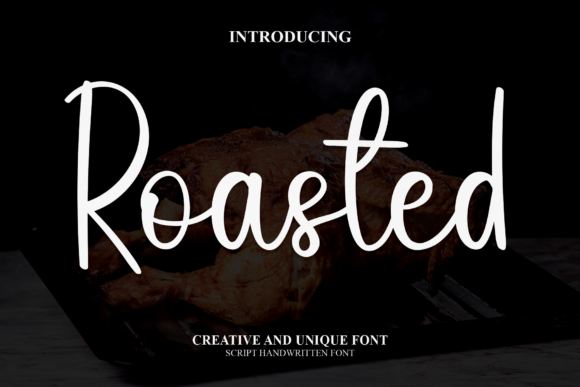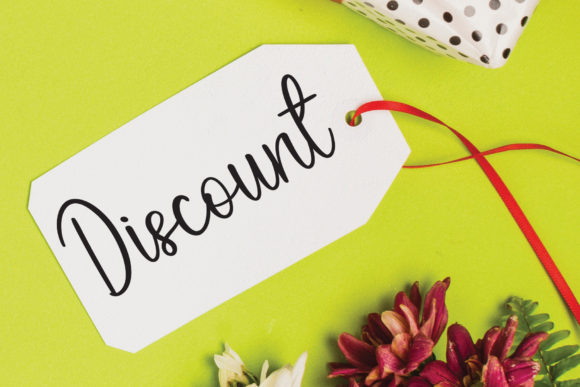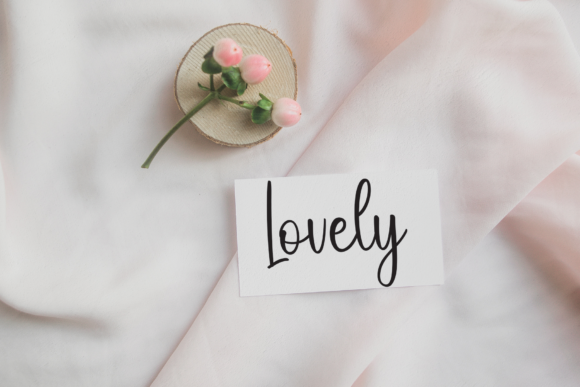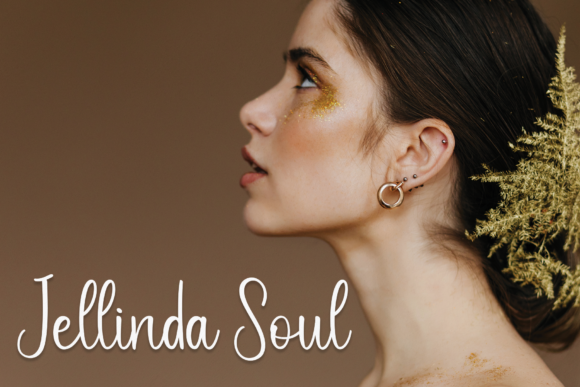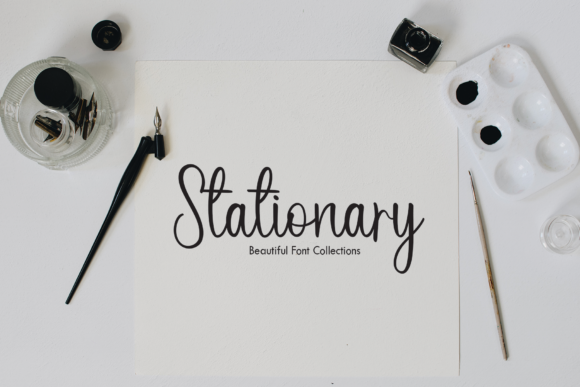
Roasted Font
Roasted is a stunning handwritten font characterized by its beauty and flowing elegance. Its versatile nature makes it suitable for a wide range of creative projects, including wall hangings, wedding invitations, social media post logos, advertising materials, product packaging, product design, labels, photography, watermarks, invitations, stationery, and any other project that demands impressive typography.
With its graceful curves and smooth strokes, Roasted adds a touch of sophistication to every design it graces. Whether you’re creating a romantic wedding invitation or designing eye-catching advertising materials, this font enhances the visual appeal of your project and captures the attention of your audience.
The fluidity of Roasted makes it ideal for a variety of applications. From elegant wall hangings to stylish product packaging, this font seamlessly integrates into different design contexts, allowing you to express your creativity and leave a lasting impression on your viewers.
Roasted is perfect for branding and logo design, helping businesses create a distinct identity that resonates with their target audience. Its handwritten charm adds a personal touch to your branding efforts, making your products and services stand out in a competitive market.
In addition to its aesthetic appeal, Roasted is also highly functional. Its legibility ensures that your message is conveyed clearly across various mediums, whether it’s on print or digital platforms.
In summary, Roasted is more than just a font—it’s a versatile tool that empowers designers to elevate their projects with impressive typography. Whether you’re a professional graphic designer or an amateur enthusiast, this font offers endless possibilities for creativity and expression.
Experience the beauty and versatility of Roasted today, and discover how it can enhance your next design project.